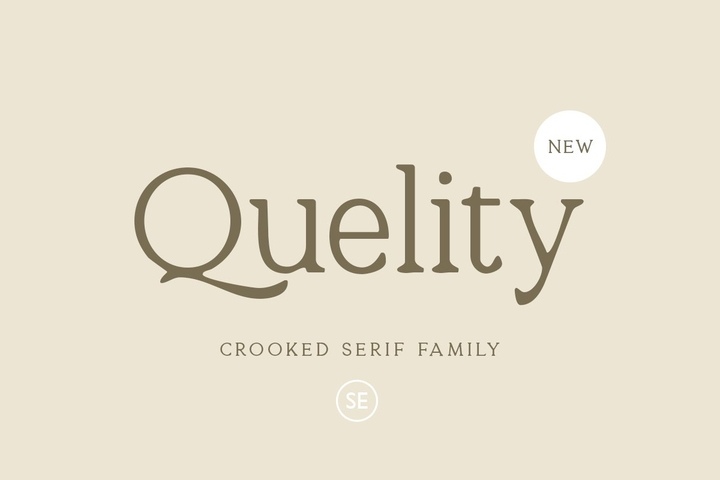
Quelity - Crooked Serif Font
Quelity - Crooked Serif Font is perfect for quirky branding, artistic publications, creative agency logos, unconventional marketing, artistic book covers, experimental designs, indie magazine layouts, handcrafted product packaging, artistic exhibitions, and unique editorial projects.
What makes Quelity - Crooked Serif Font exciting is its delightful imperfection that embraces the beauty of human irregularity and artistic spontaneity through charmingly crafted letterforms. This unconventional typeface combines traditional serif elements with playful asymmetry, creating a personality that communicates creativity, authenticity, and charming individuality. The font's crooked character and artistic appeal make it perfect for brands seeking to celebrate human imperfection and the authentic charm of handcrafted design in mass-produced digital environments.
The Quelity - Crooked Serif Font family includes Regular, Bold, Light, Medium, Quirky, Artistic, Handmade, and Irregular variants. Each weight maintains the font's crooked character while providing comprehensive typographic flexibility for unconventional brand identity systems and artistic design applications across diverse creative platforms.
Whether you're developing artistic brand identities, creating unconventional marketing materials, designing handcrafted product packaging, or building creative advertising campaigns, Quelity - Crooked Serif Font delivers unmatched artistic appeal and quirky authenticity. Its charming presence makes it perfect for indie publishers, artisanal brands, creative studios, and unconventional businesses seeking authentic handcrafted representation.
The font's irregular proportions and charming details create an engaging reading experience that celebrates human imperfection and artistic spontaneity. Each letterform has been carefully designed to maintain readable functionality while preserving the delightful irregularities that make handcrafted design so appealing and memorable.
This versatile typeface excels in creative environments, offering designers the authenticity needed for comprehensive artistic brand communication strategies. The extensive character set includes quirky alternates, irregular ligatures, and handcrafted symbols for creative market positioning and artistic brand storytelling.
Embrace the power of imperfect design that celebrates human creativity and authentic artistic expression.